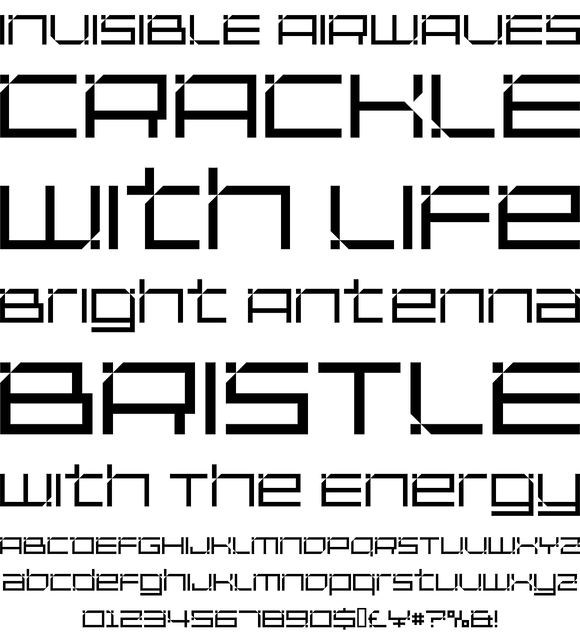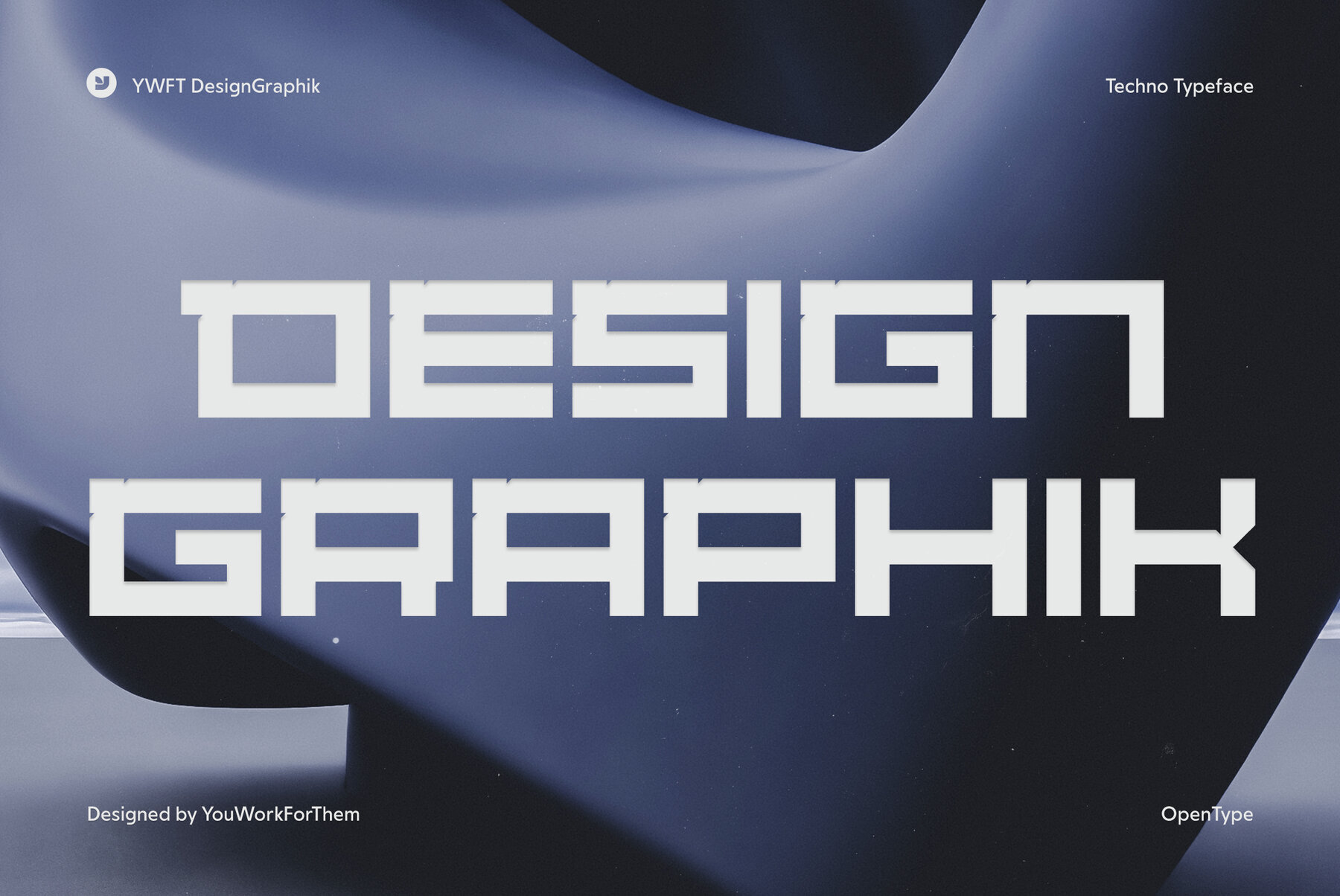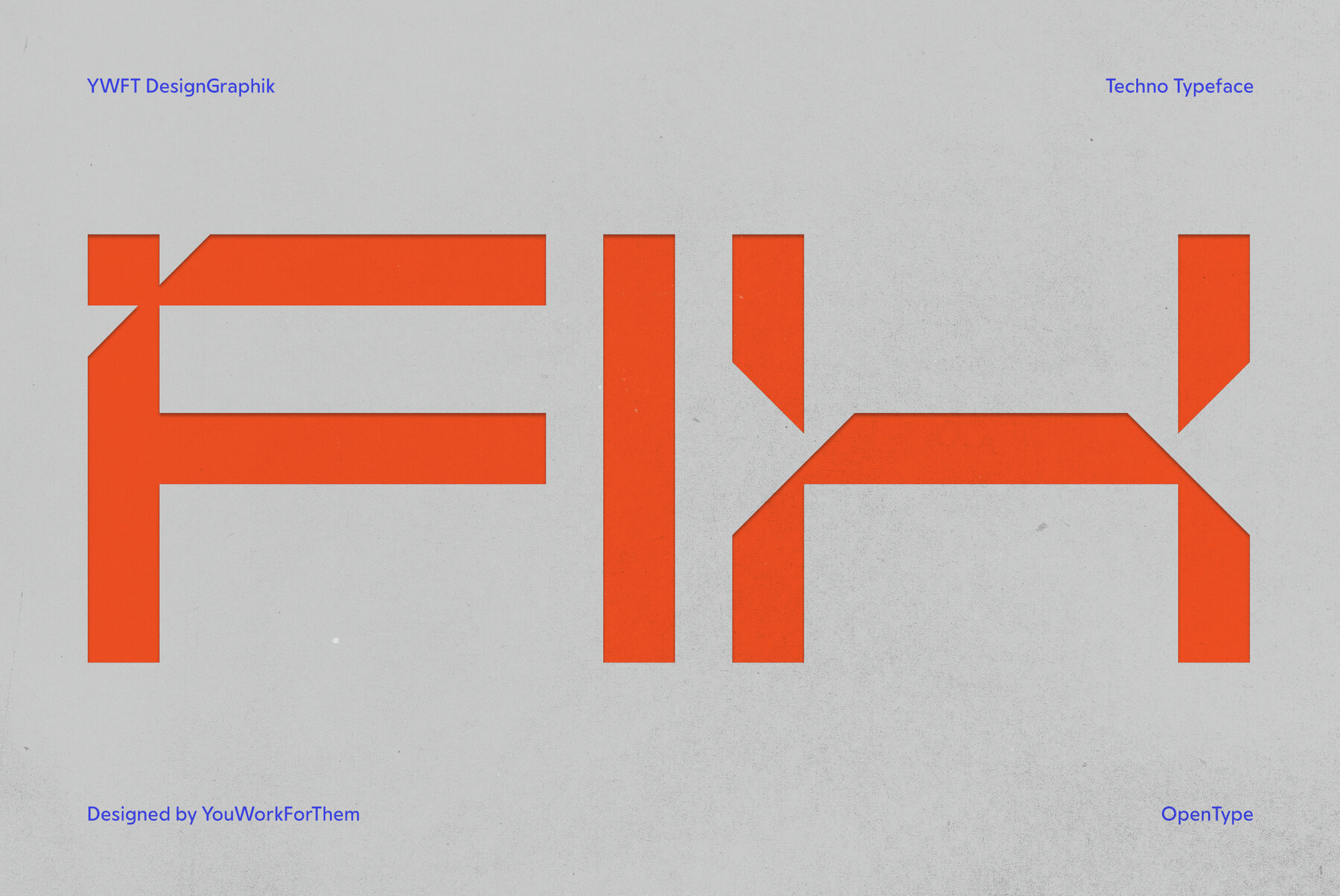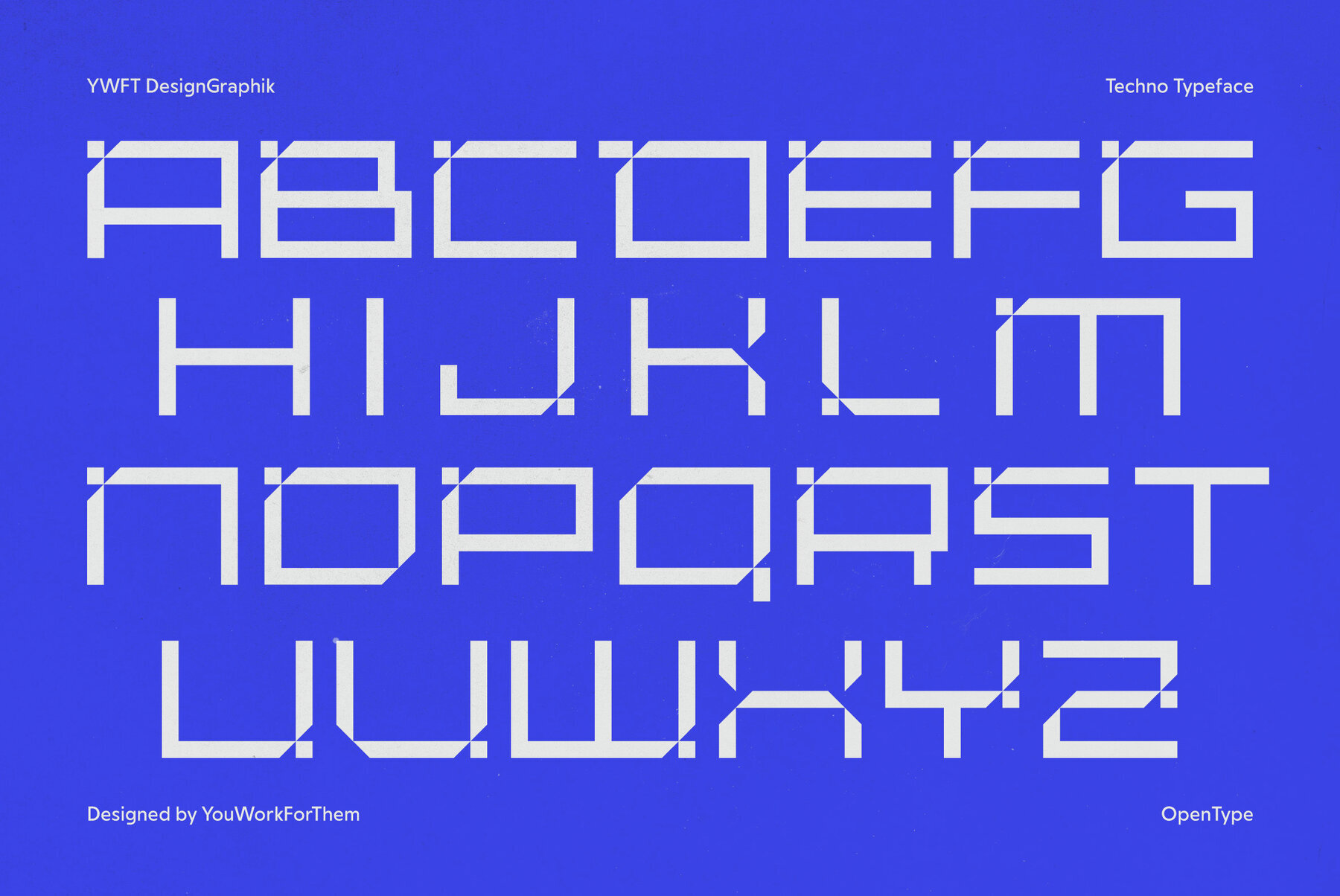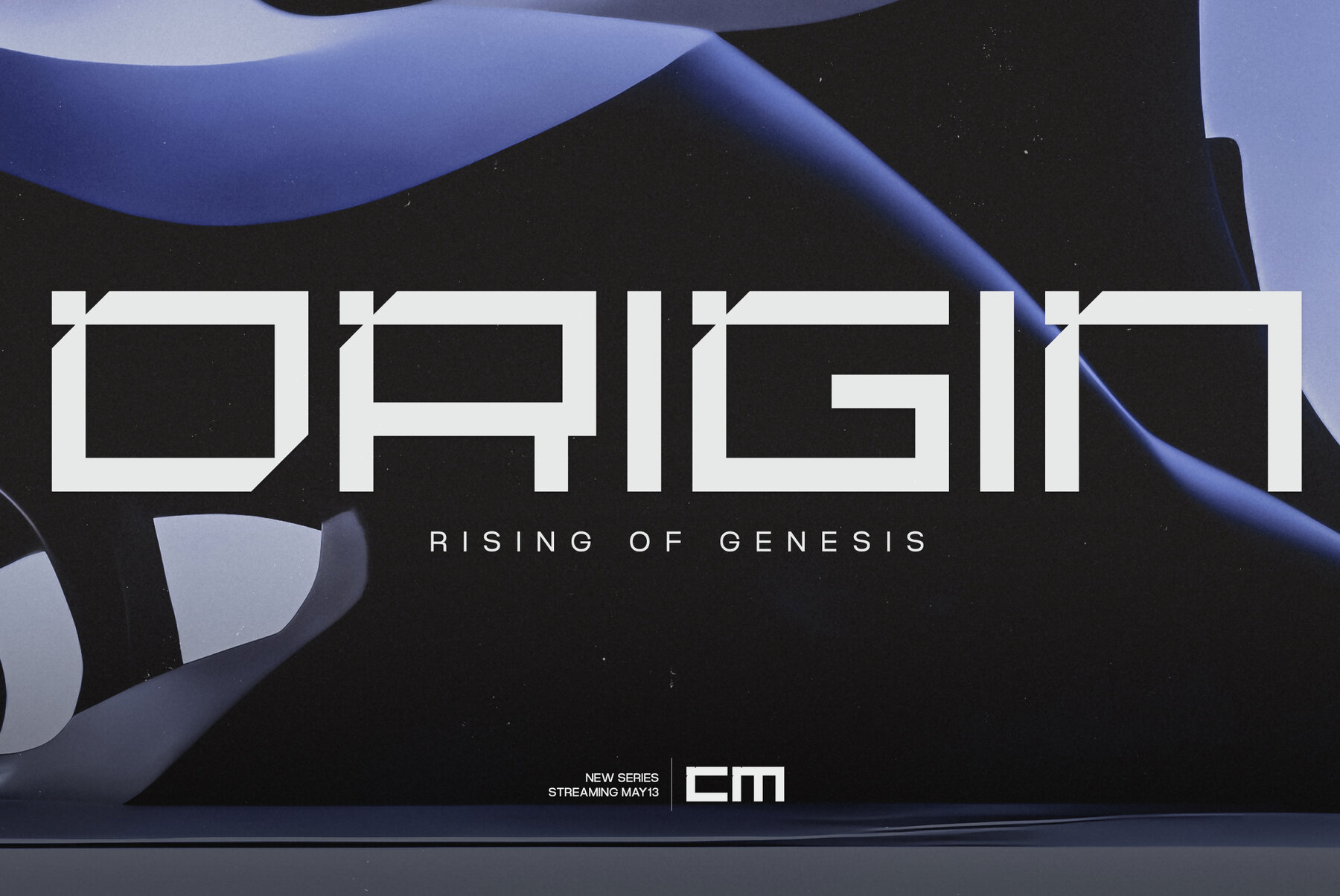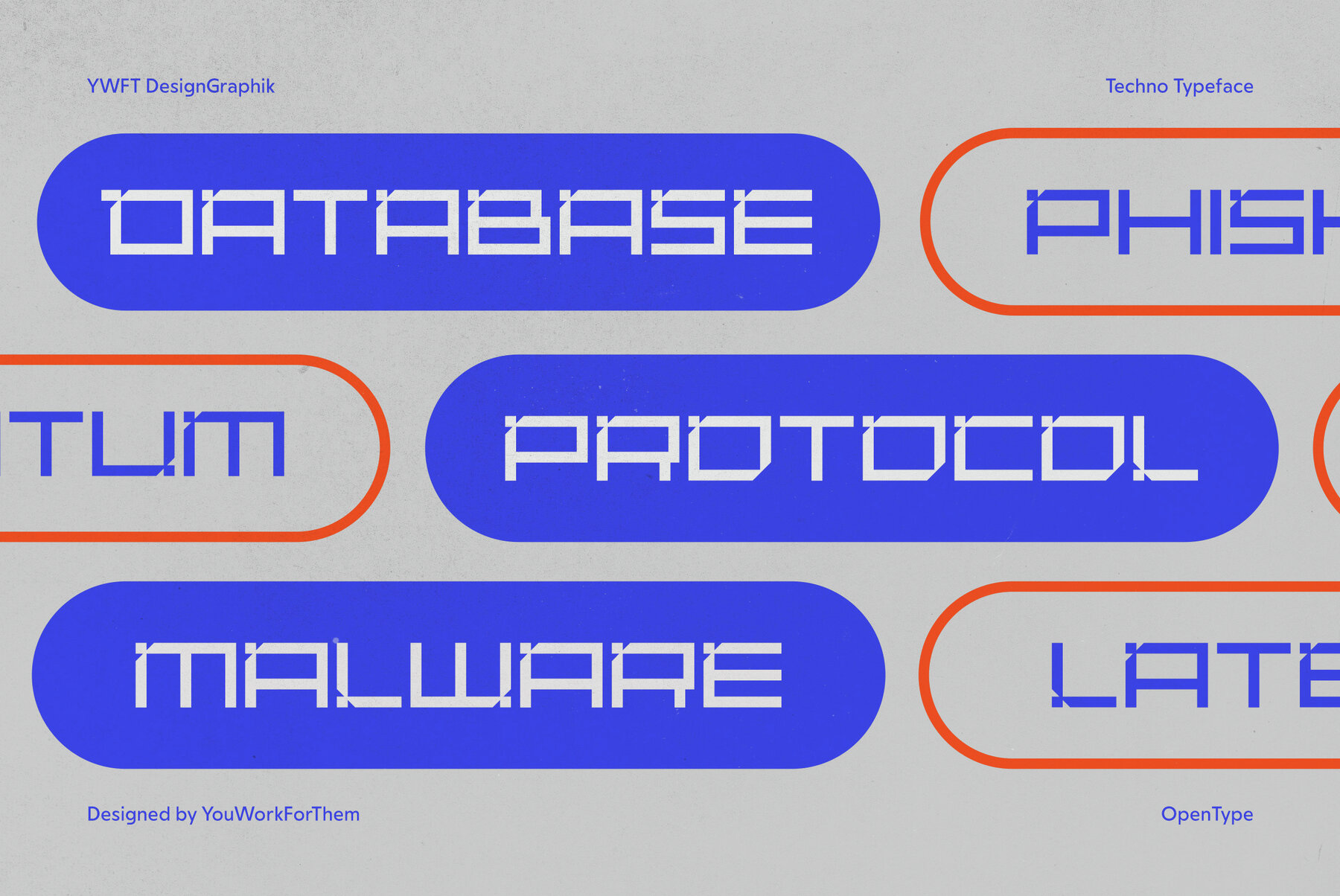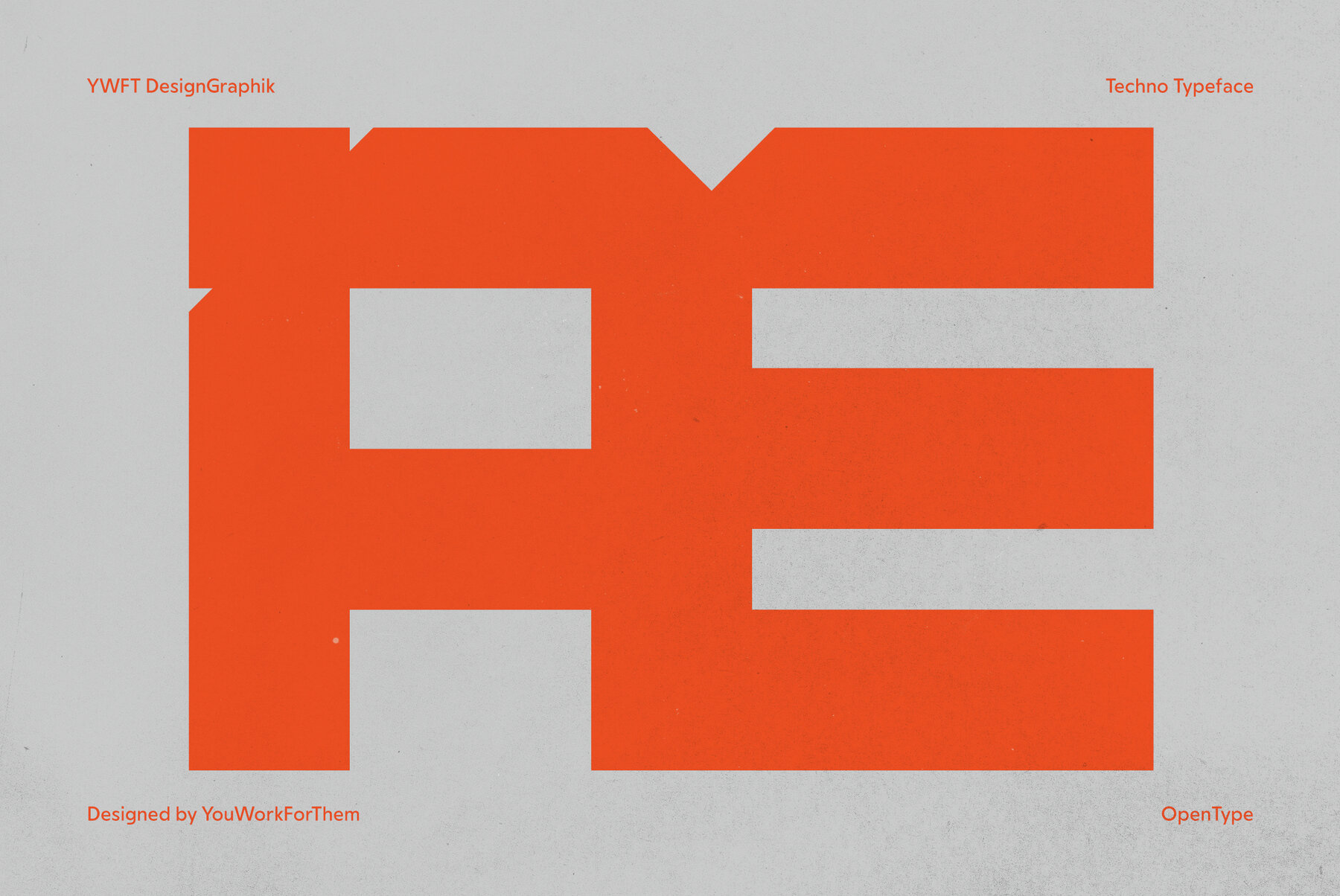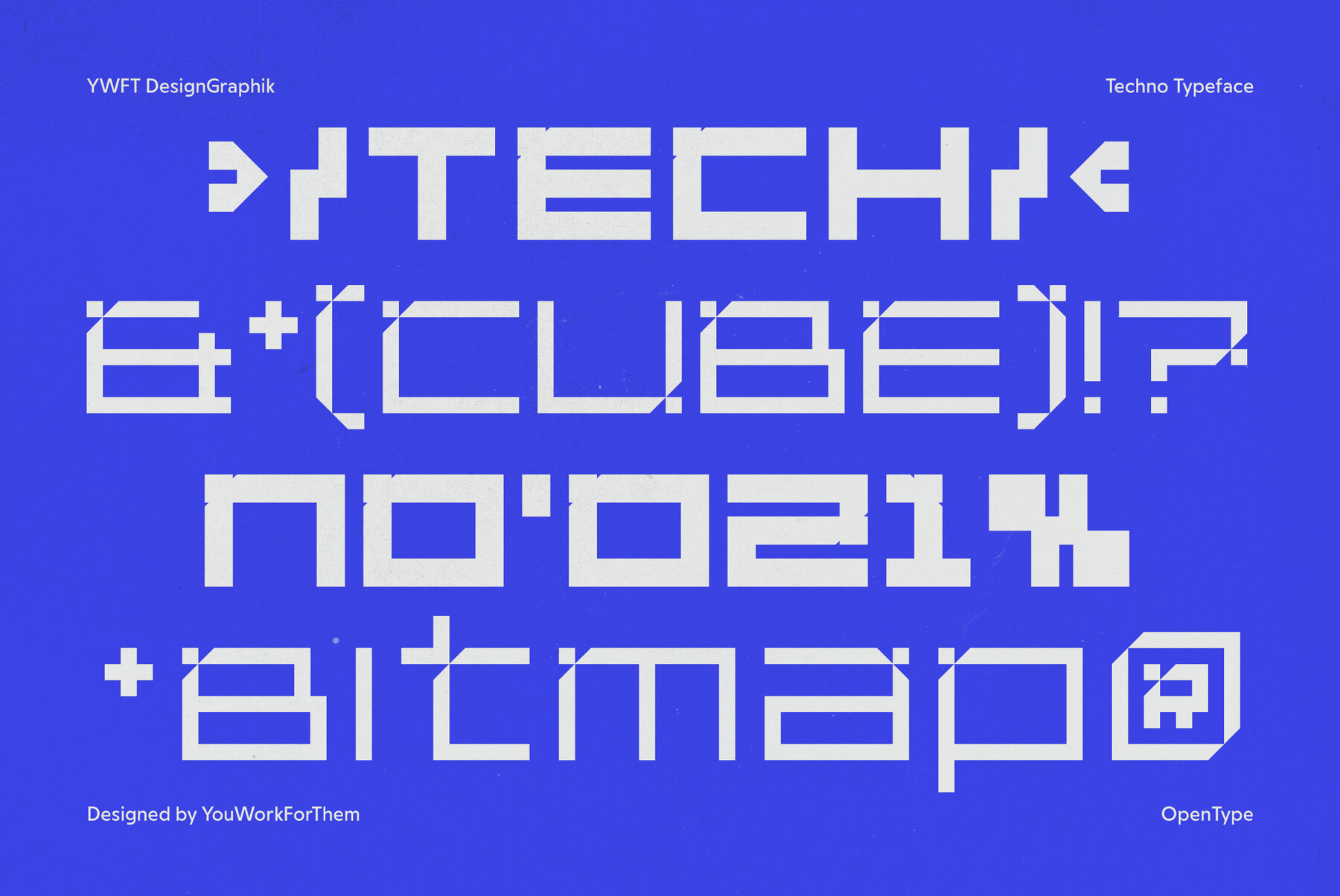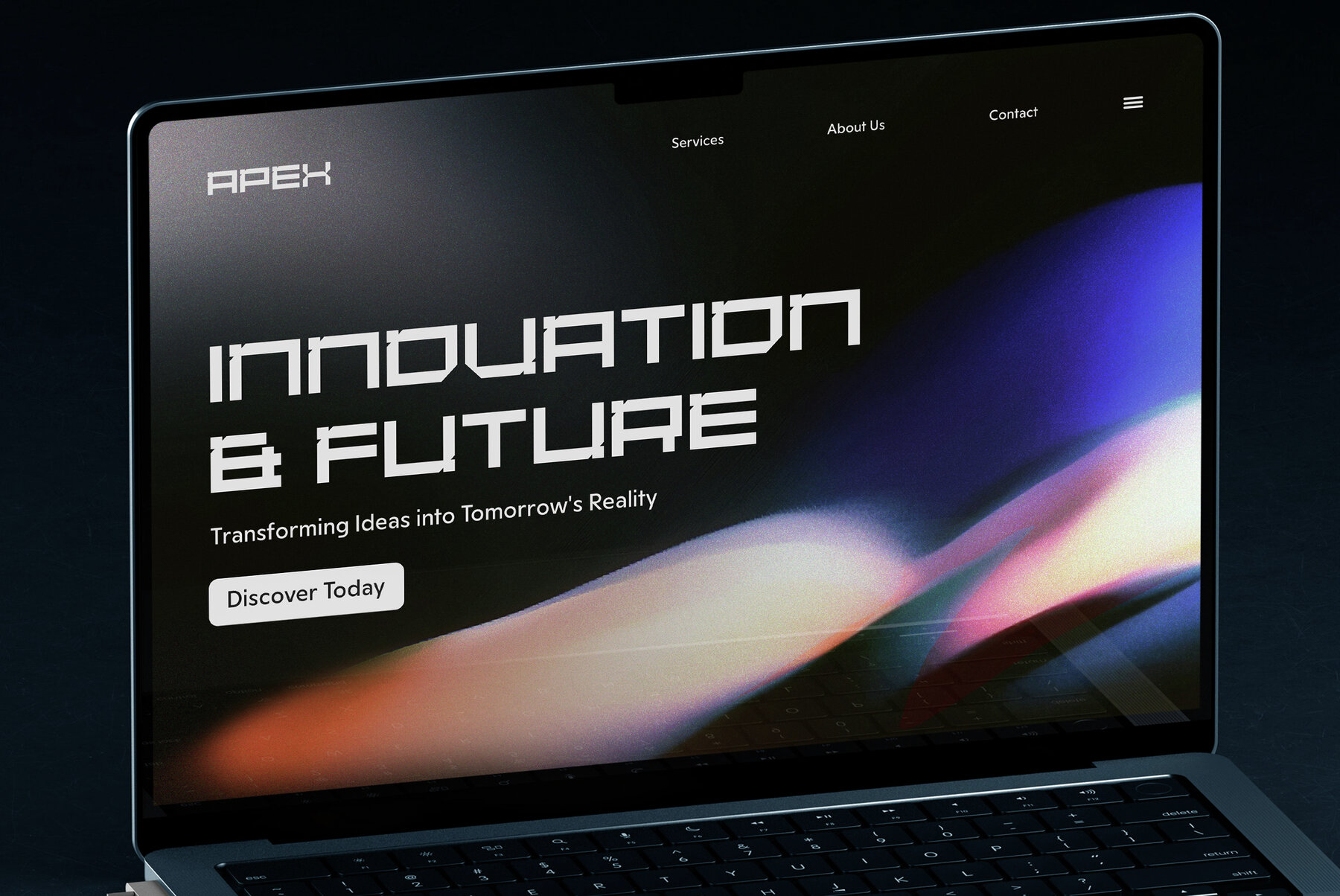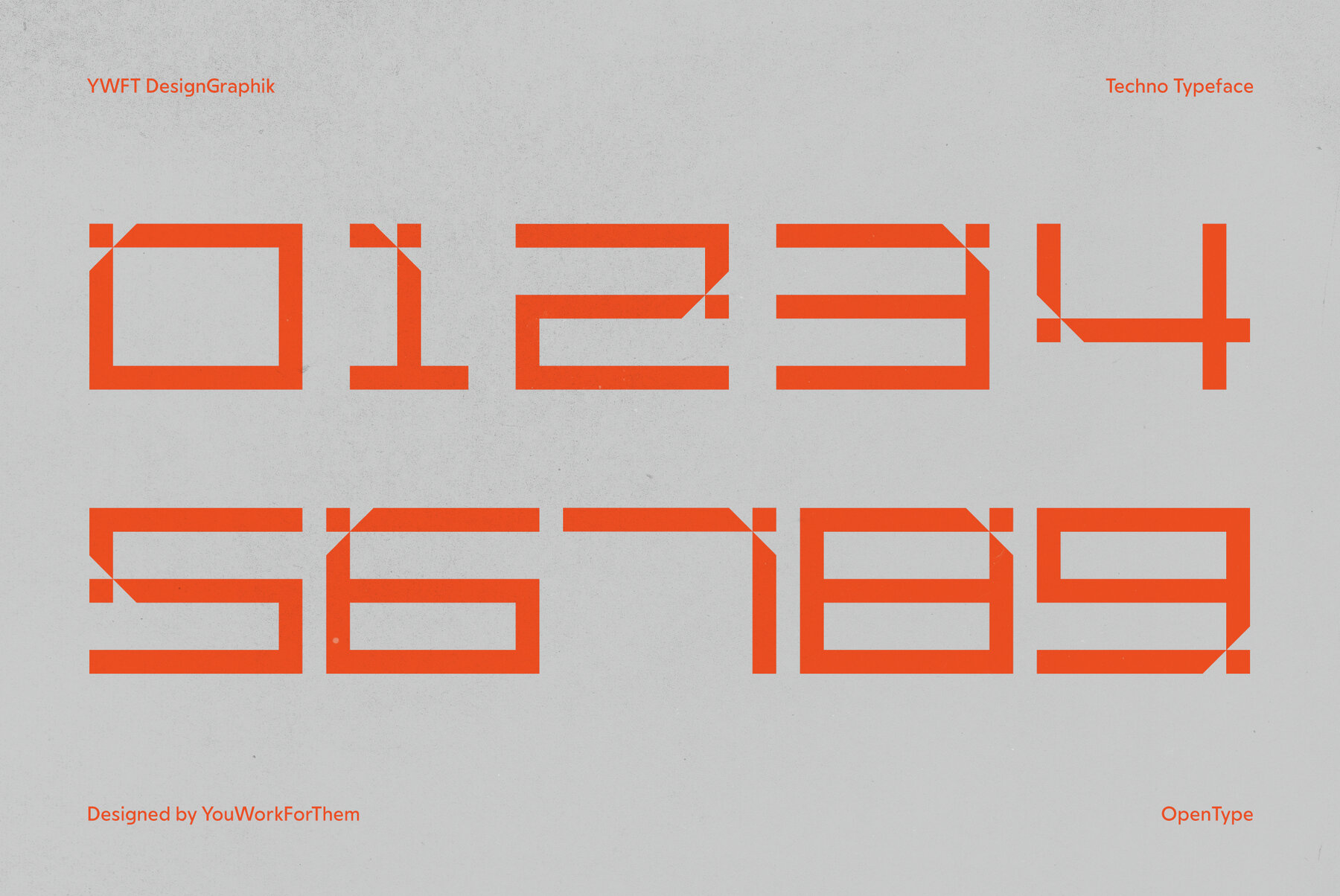
YWFT DesignGraphik is a custom typeface that was created for the fifth version of Michael Paul Young's long-running online art project of the same name.
YWFT DesignGraphik is a custom typeface that was created for the fifth version of Michael Paul Young's long-running online art project of the same name. Accordingly, the font has strong family ties with (and carries a strong resemblance to) MPY's work of the late 90's and early 2000's; work that set the style and trend visually for many, many websites that followed. In fact, Young was once called "the most-copied web designer in the world." (He didn't mind.) Use the Black weight to achieve full headline ramming speed. YWFT DesignGraphik was designed in 2000, and converted to Opentype in 2010.